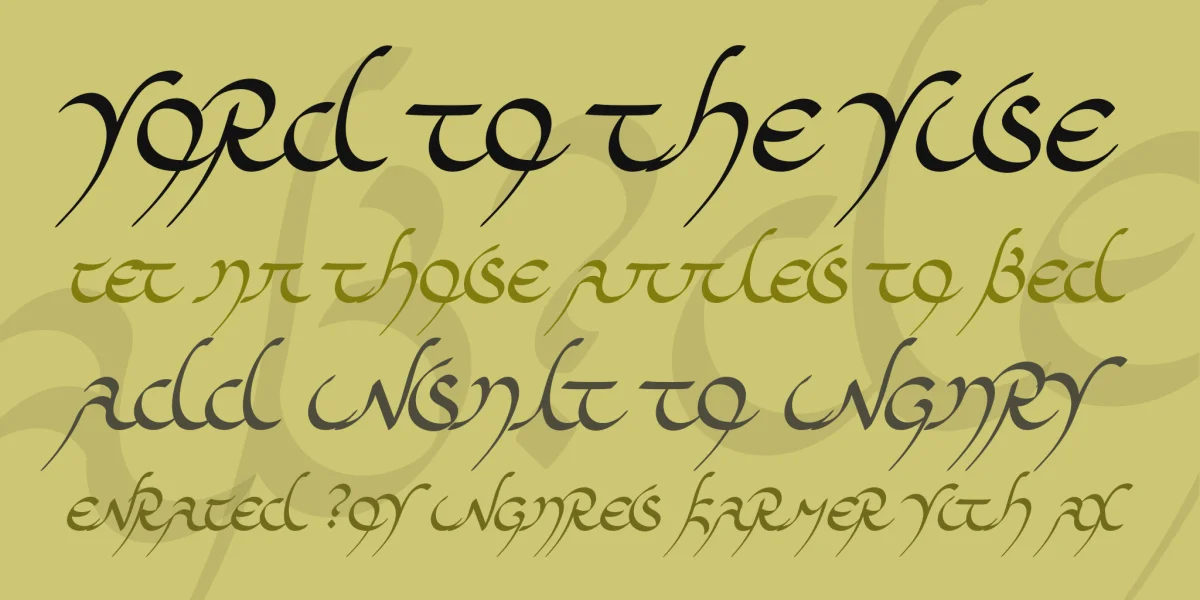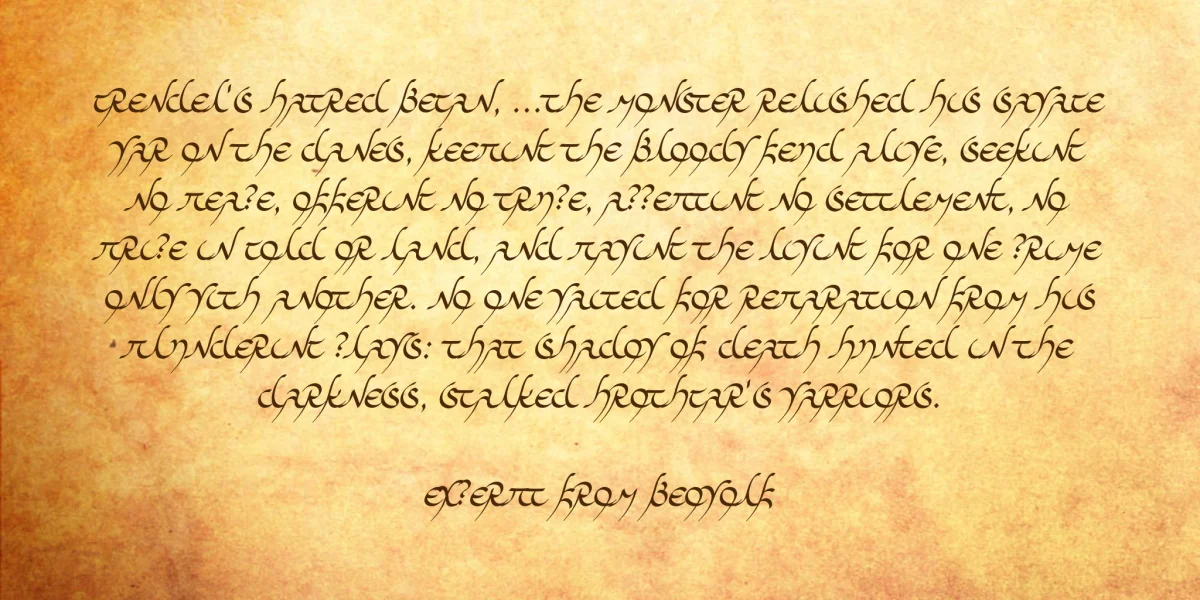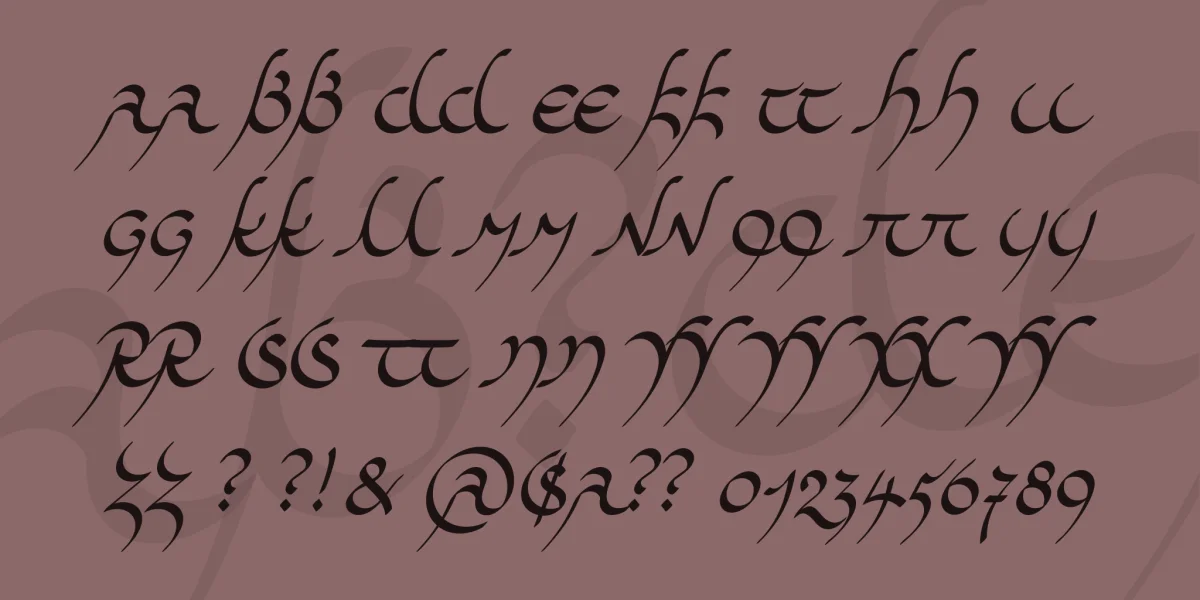
[smallcaps]Midjungards[/smallcaps] is an amply fictitious Gothic hand script. Beside my interest in history, language and culture of the ancient Goths, I’m a great friend of [smallcaps]J.R.R. Tolkien[/smallcaps]’s œuvre—and in the intersection of both now lies this font. It is modelled on the italic style of the Elven script Tengwar. The name Midjungards (goth. “world”) follows the name of [smallcaps]Tolkien[/smallcaps]’s fantasy continent, “Middle Earth”, which in turn is obviously derived from the Germanic “Midgard” (as [smallcaps]Tolkien[/smallcaps]’s world borrows many a motif from European mythology and history).
This typeface contains 110 characters. To allow writing in programmes that don’t support the high Gothic Unicode range (as for example MS Word), the Gothic characters are mapped to the Latin range as well. And in order to render texts in Midjungards that distinguish between upper and lower case letters, this font’s latin majuscules and minuscules are equally mapped with Gothic glyphs. Finally, to achieve a neat sequence of letters, it is highly recommended that kerning and ligatures be turned on.
Midjungards is compatible with those of my fonts having a more extensive character set. If a text is set from Ulfilas or Skeirs into Midjungards, characters not included in Midjungards—e. g. some accents—are simply omitted (instead of being displayed as boxes).
Just as Silubr, Midjungards comes with a “hist” feature that automatically renders a typeface that is closer to historic Gothic writing: Spaces are omitted, punctuation is reduced to mid-dot and colon, and a diaeresis is added to an “I” at the beginning of a word (whilst in the mid of a word, at the beginning of a syllable, a diaeresis should already be set). In Order to make this feature available in Microsoft Word 2010 (which supports just a few OpenType features, including the stylistic sets), I’ve added a copy of this feature as stylistic set “ss05”.
For a demonstration of both, see the analogous illustration at the Silubr page.
Kerning (“kern”) and ligatures (“rlig”) beautify the type face, while the stylistic sets “ss01” and “ss02” replace each diaeresis by the one or other kind of [smallcaps]Tolkien[/smallcaps]’s triple dots.